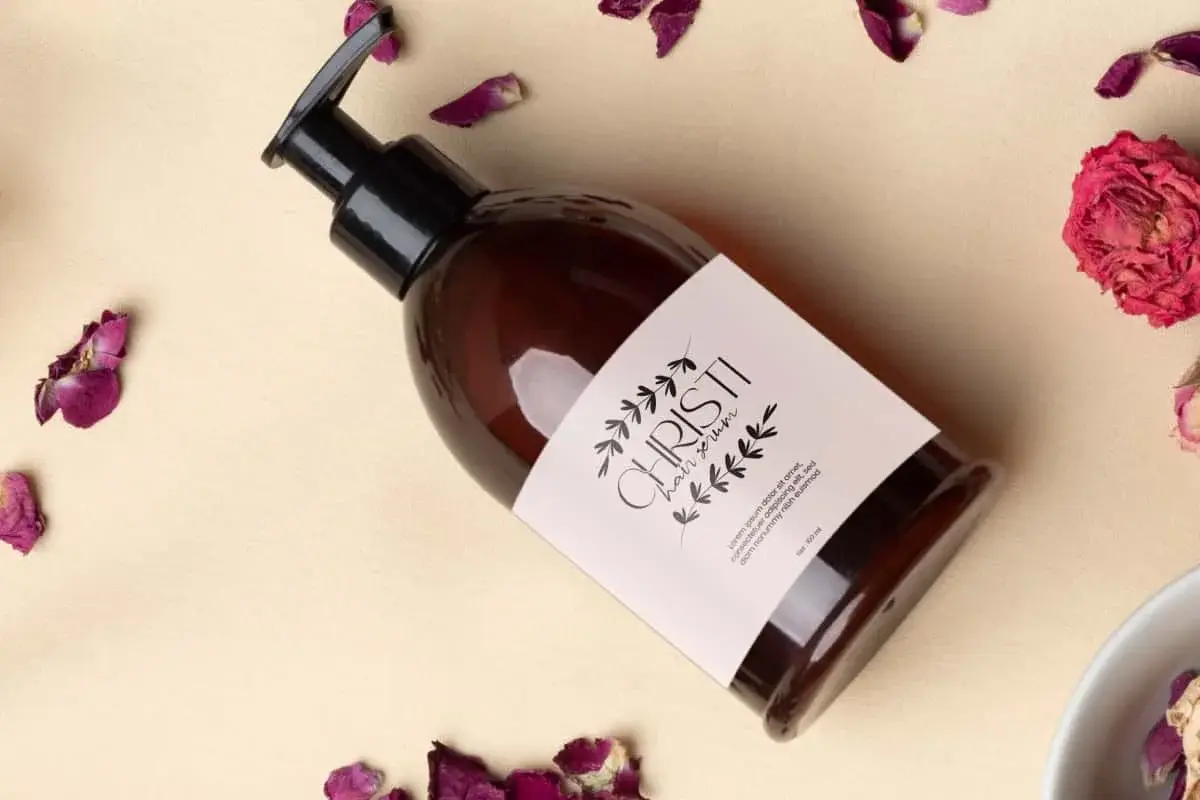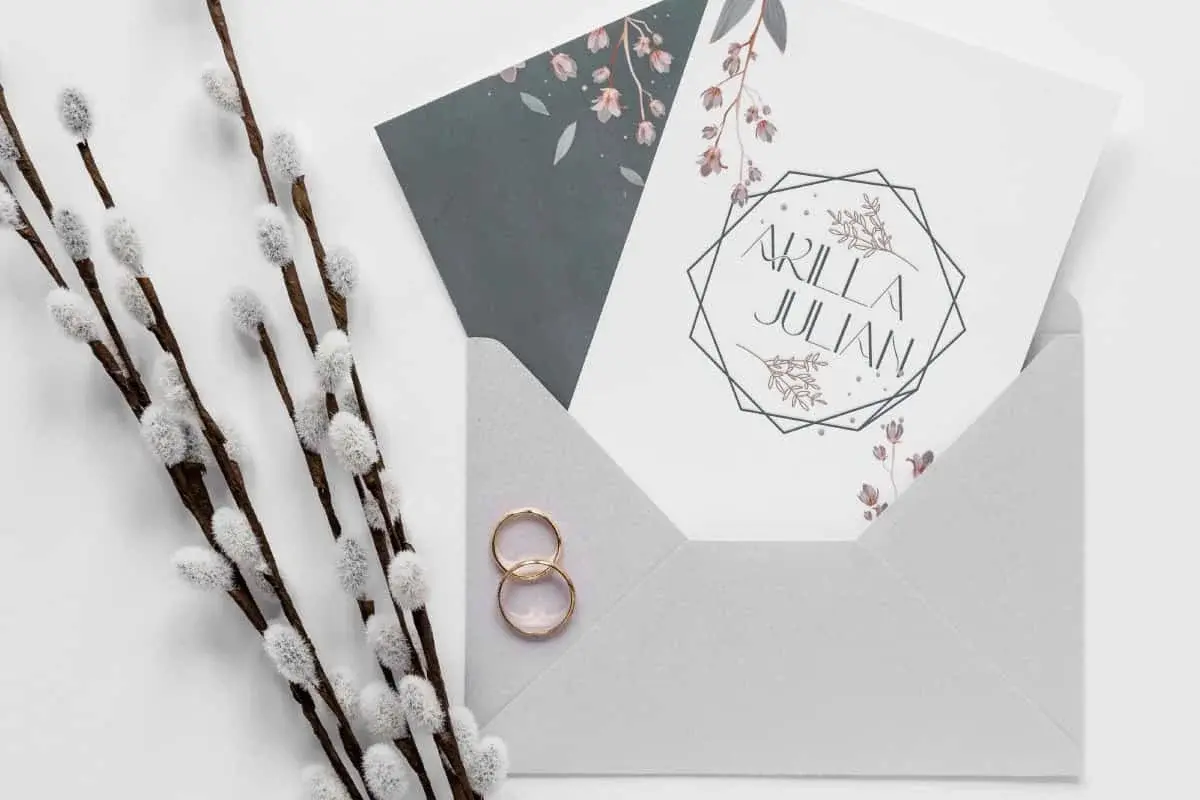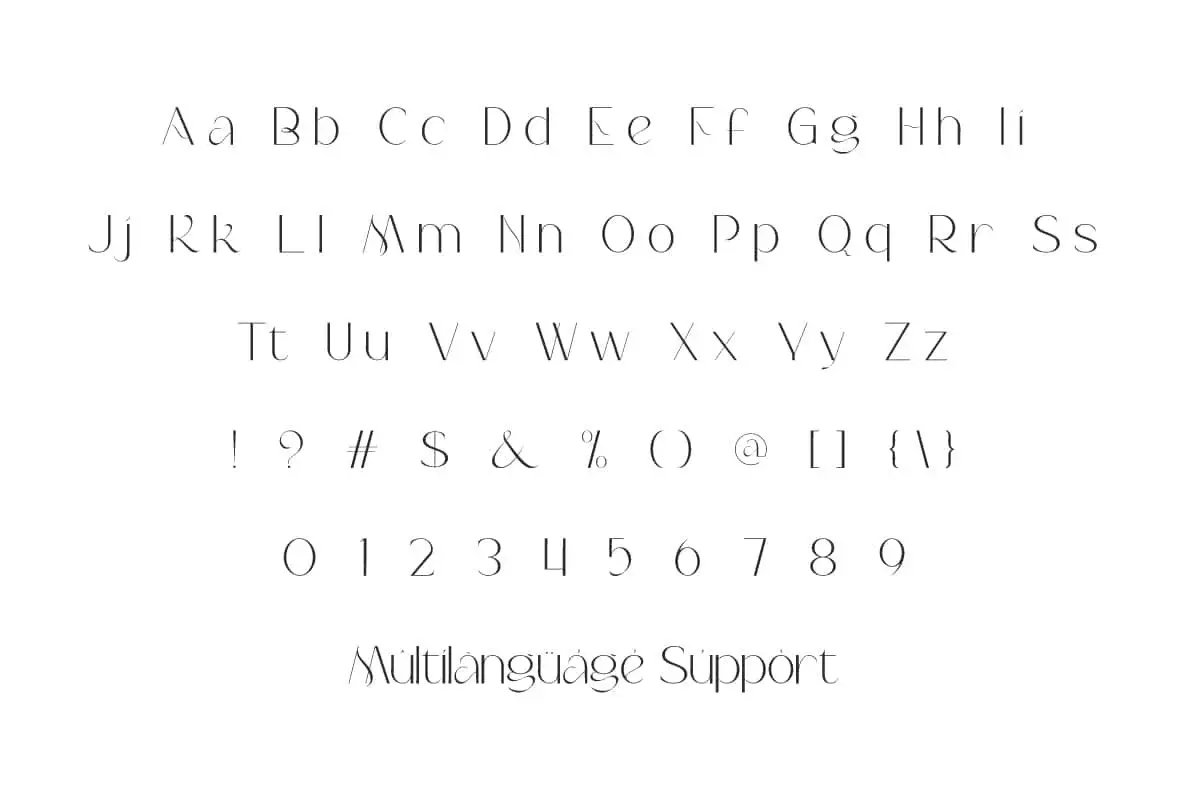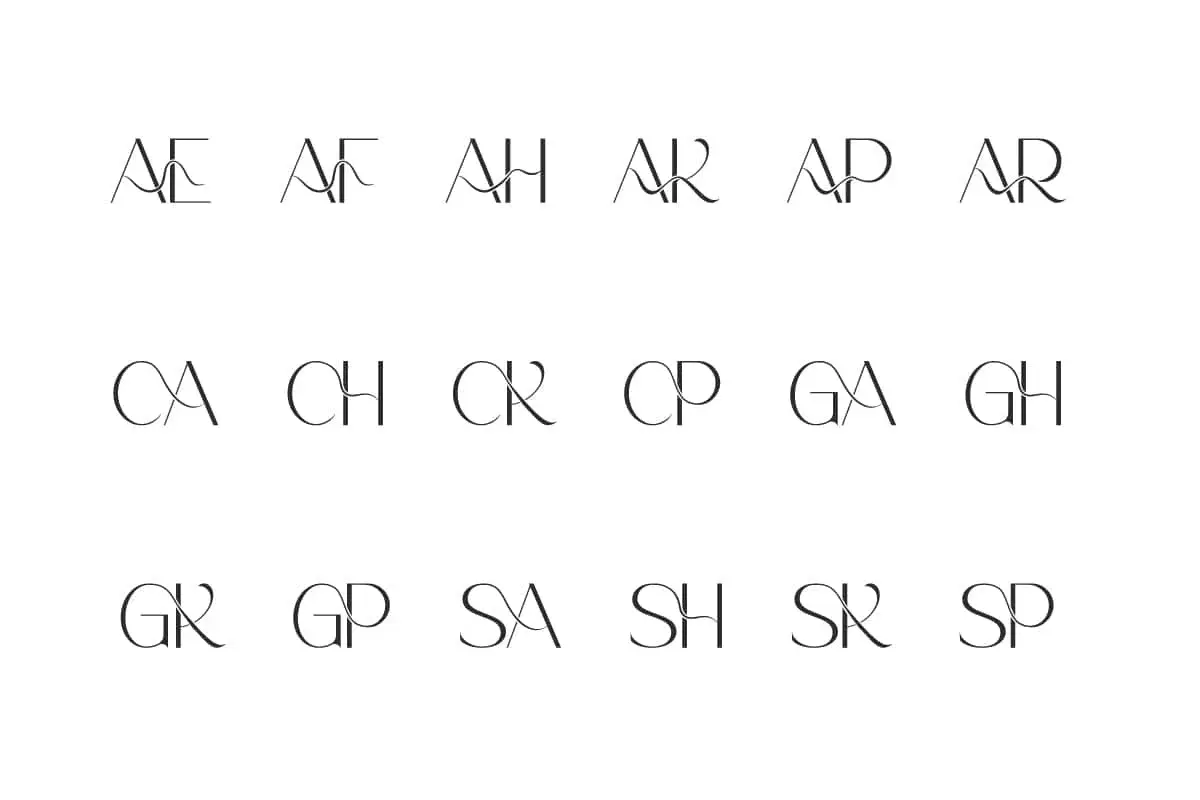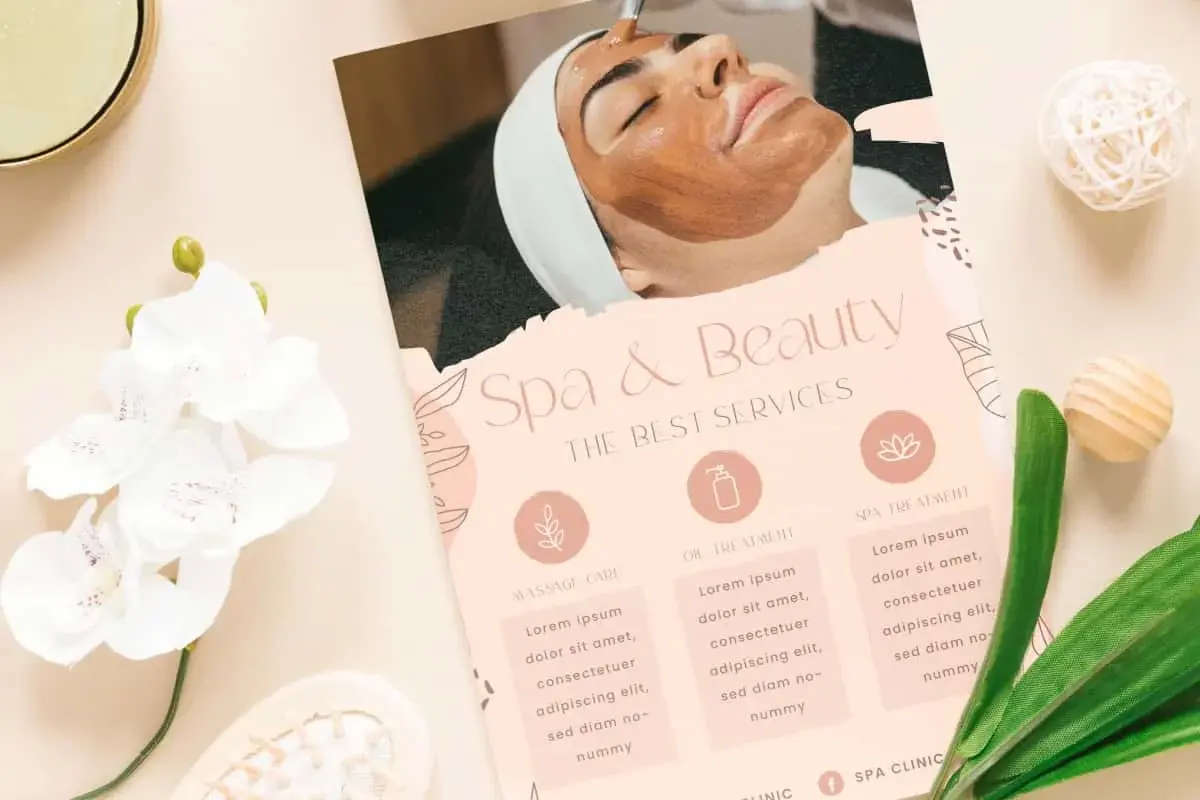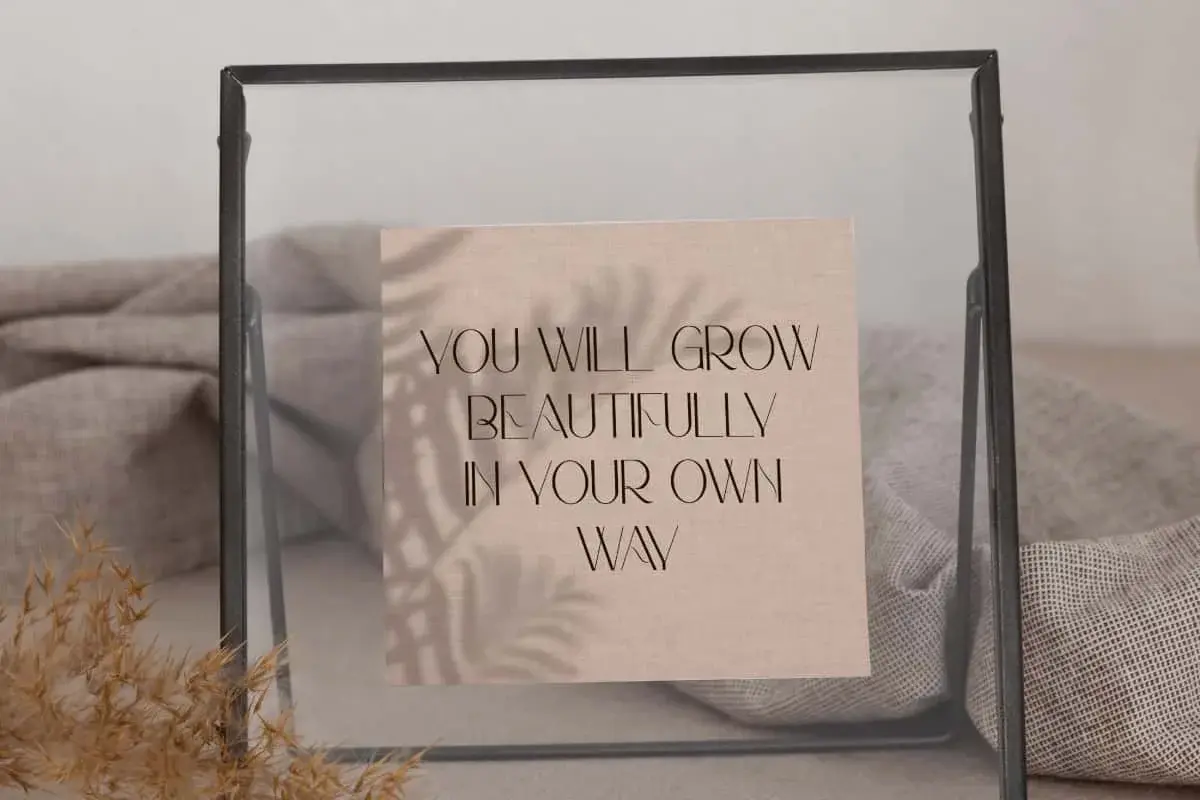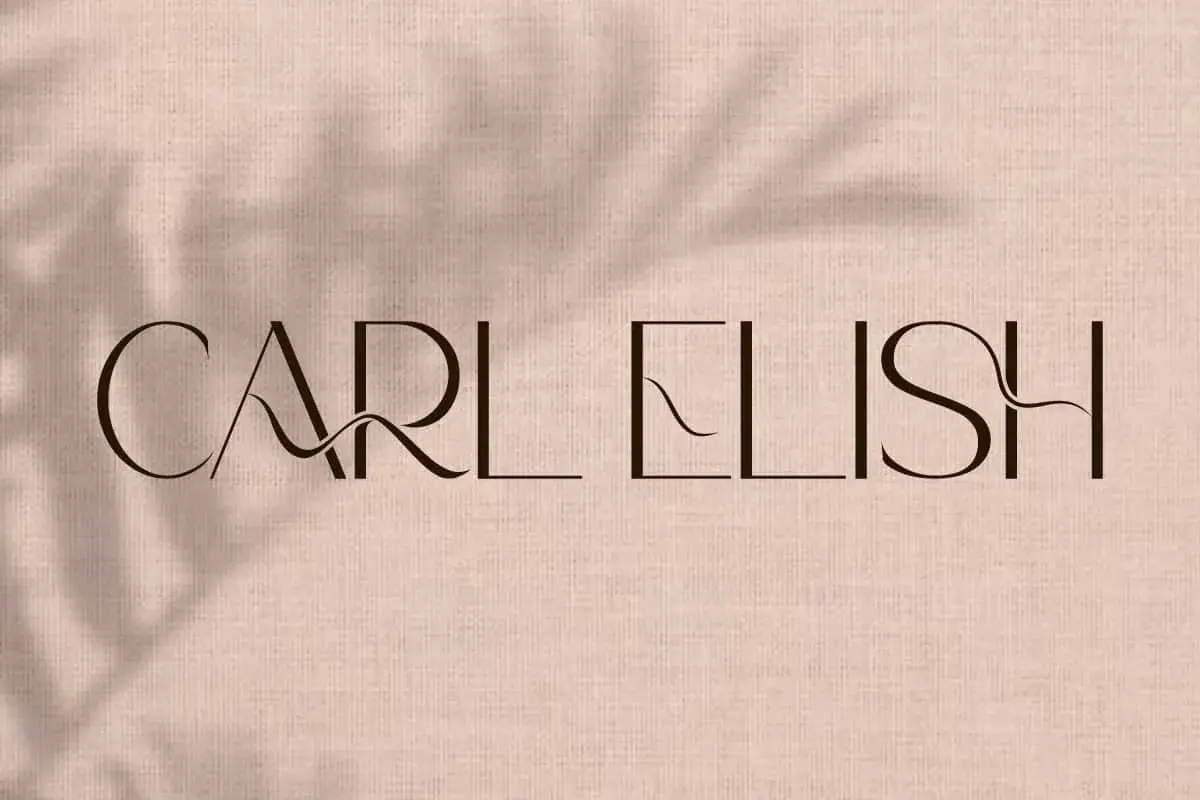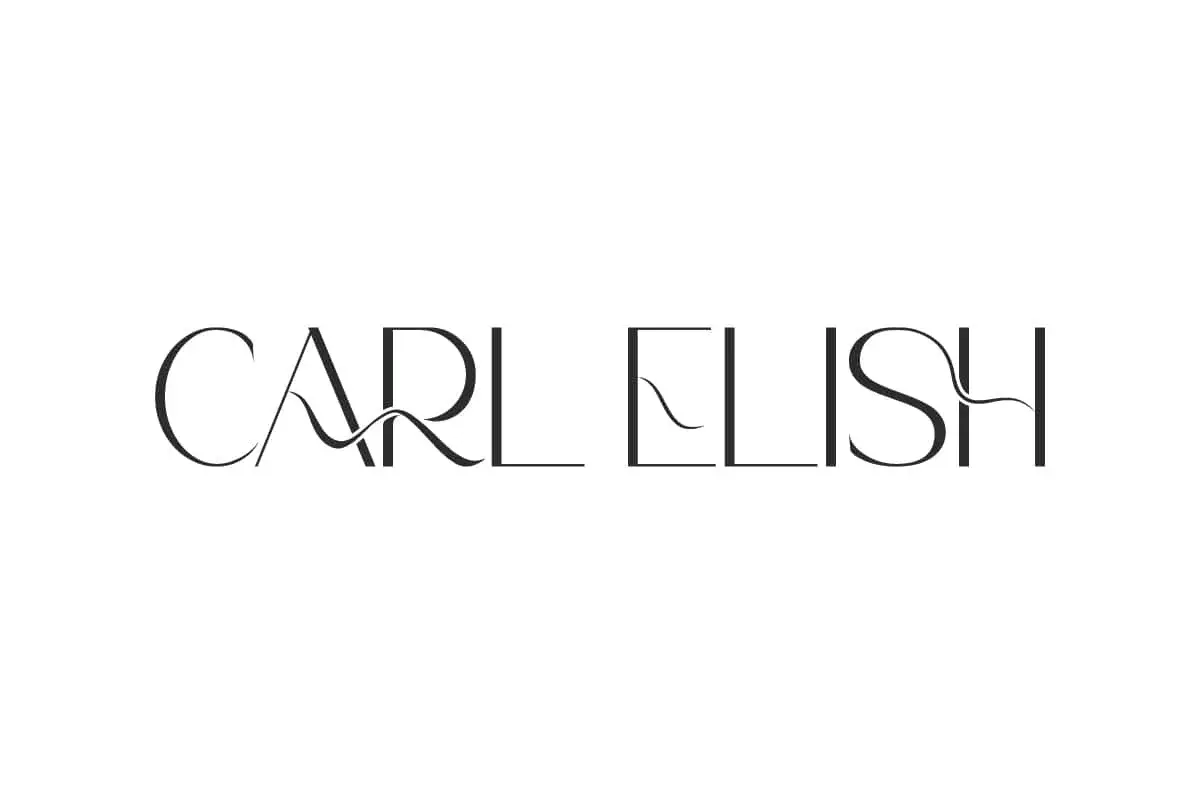
Carl Elish Font is a classy display font that blends timeless elegance with modern aesthetic. It will take your projects to the next level in a luxurious way.
Carl Elish Font is a modern, classy display font that blends timeless elegance with modern aesthetic that embodies original elegance. Crafted with meticulous attention to detail, it exudes a beautiful and timeless charm. It creates a balanced and visually appealing aesthetic. Whether used for branding logo, brochure, invitation, label, packaging, poster, quotes, and much more.
Carl Elish Font contains a complete set of basic Uppercase and Lowercase characters, Numbers, Symbols, Punctuation and Ligature. This typeface will be perfect for both print and digital applications. Its modern and lightweight appearance will adapt seamlessly to your creative vision. Perfect for advertisement, beauty clinic, cosmetic, fashion, florist, graphic design, home furniture, lifestyle vloggers, skincare, spa salon, wedding, and others.